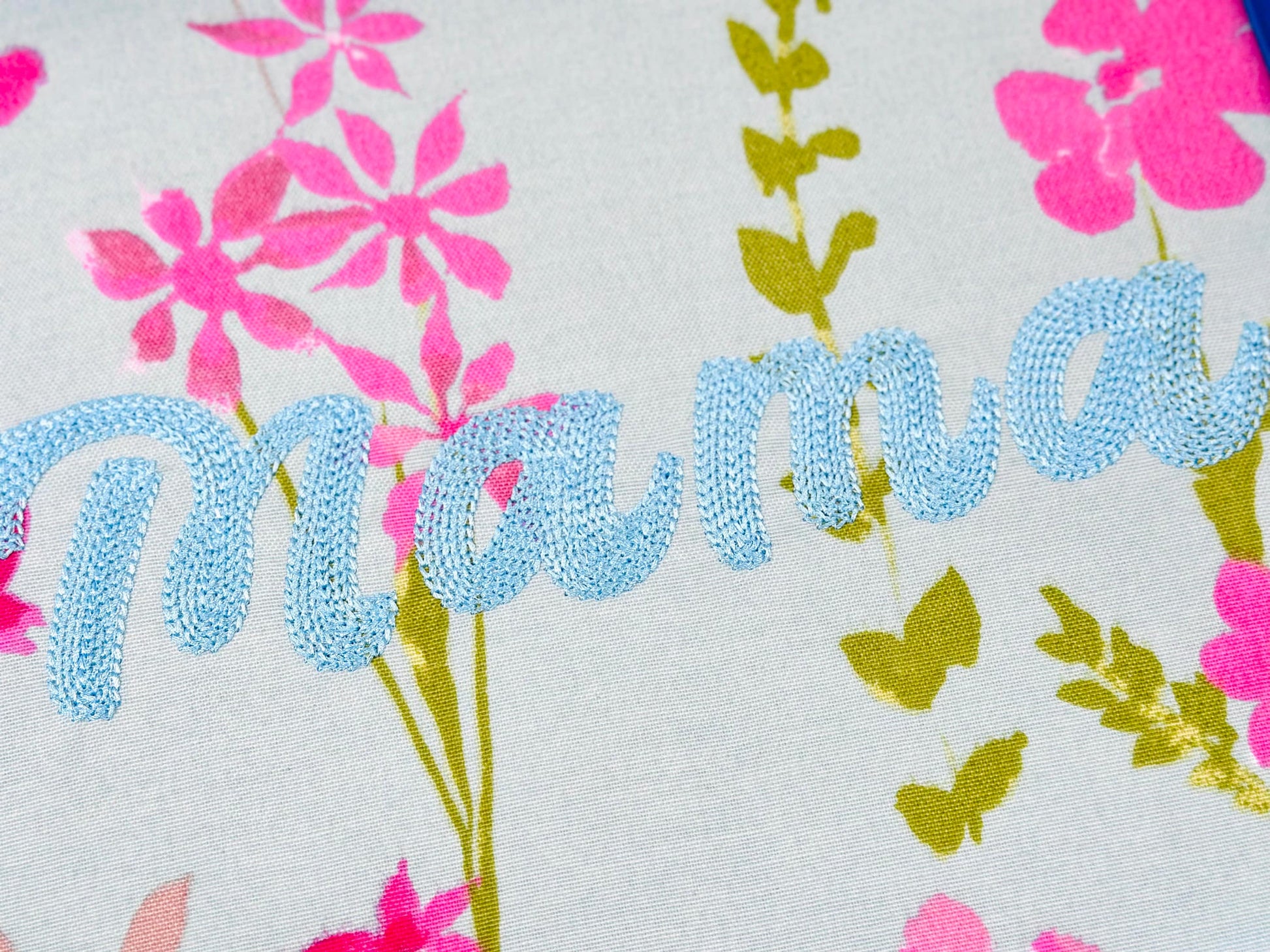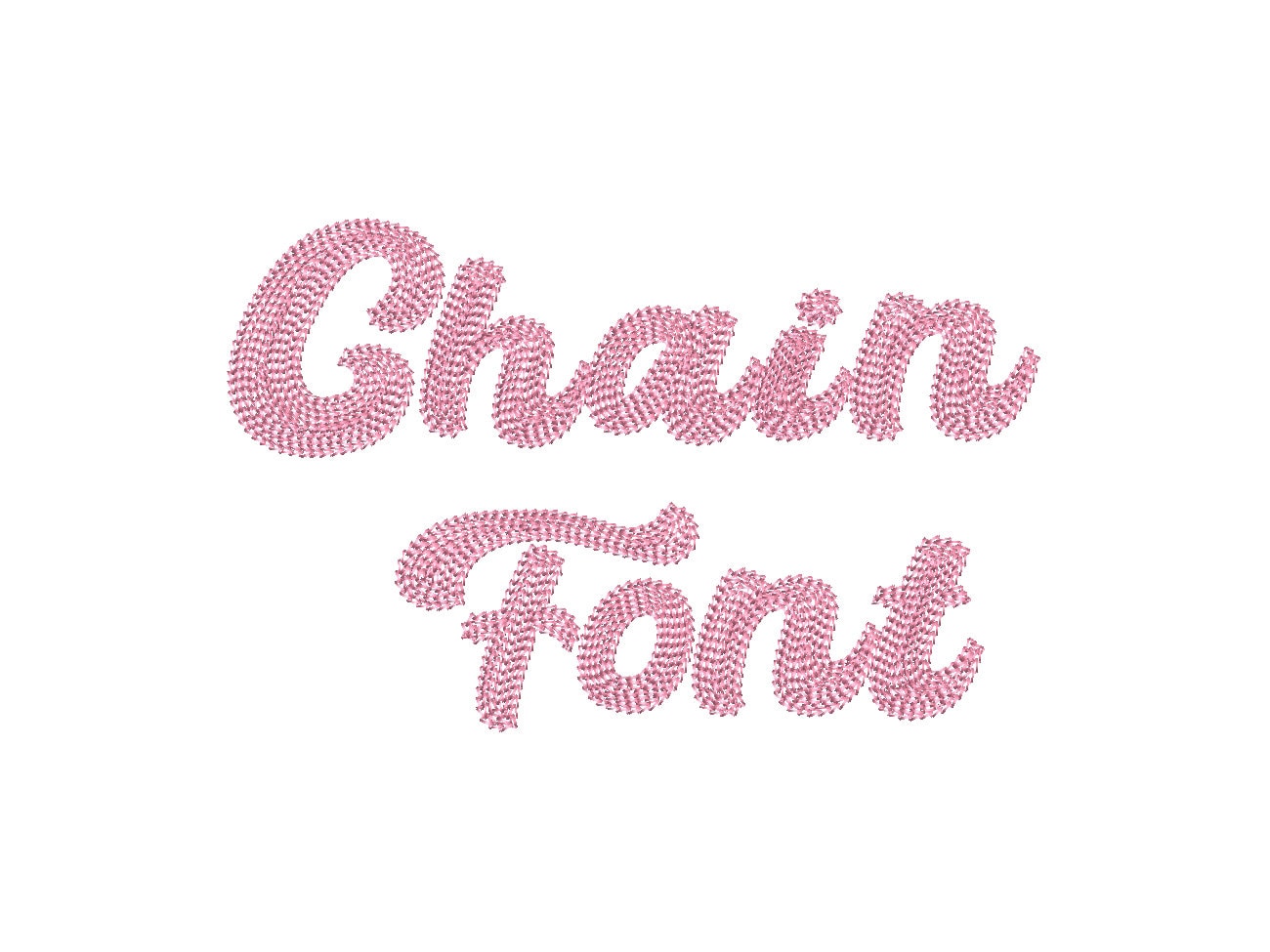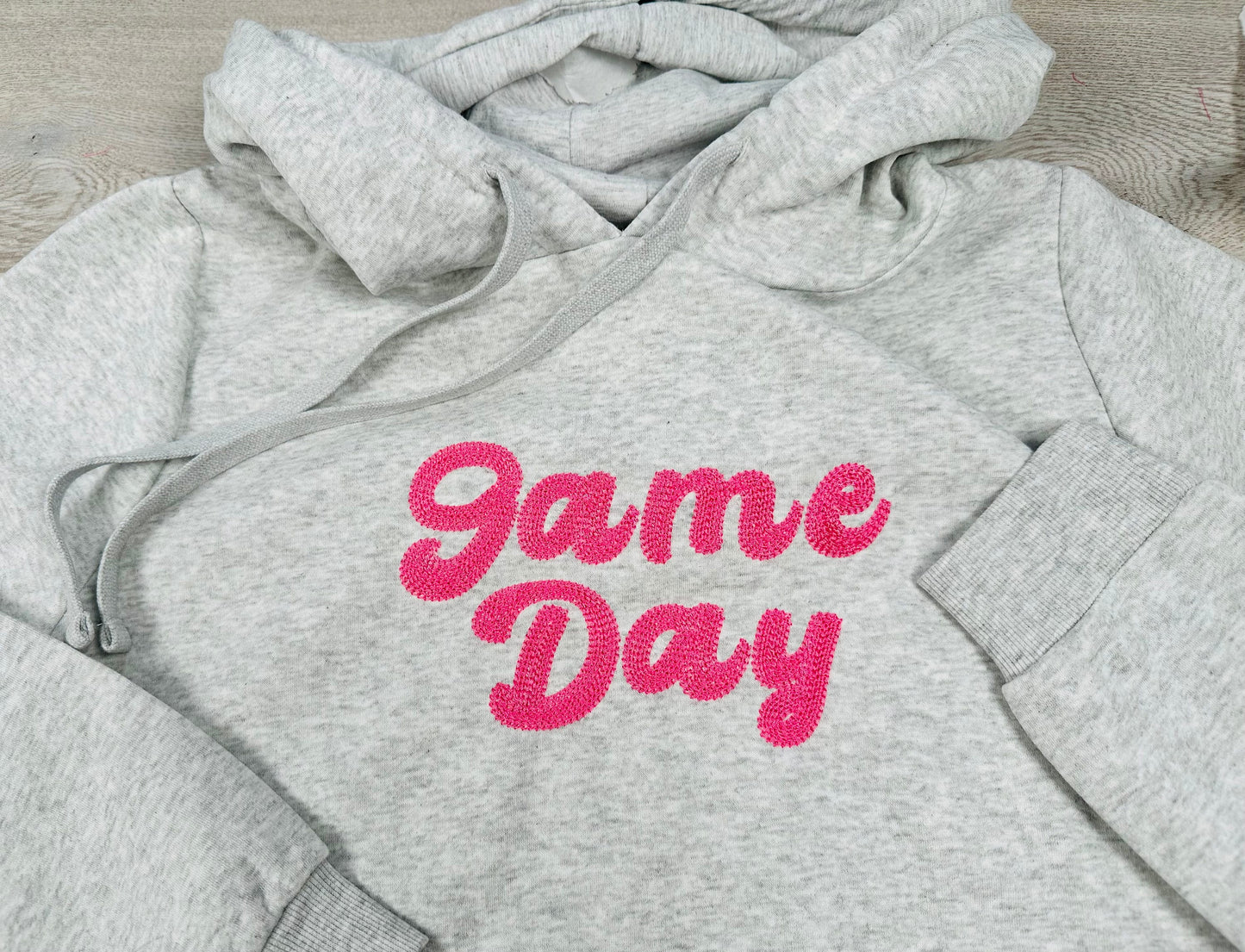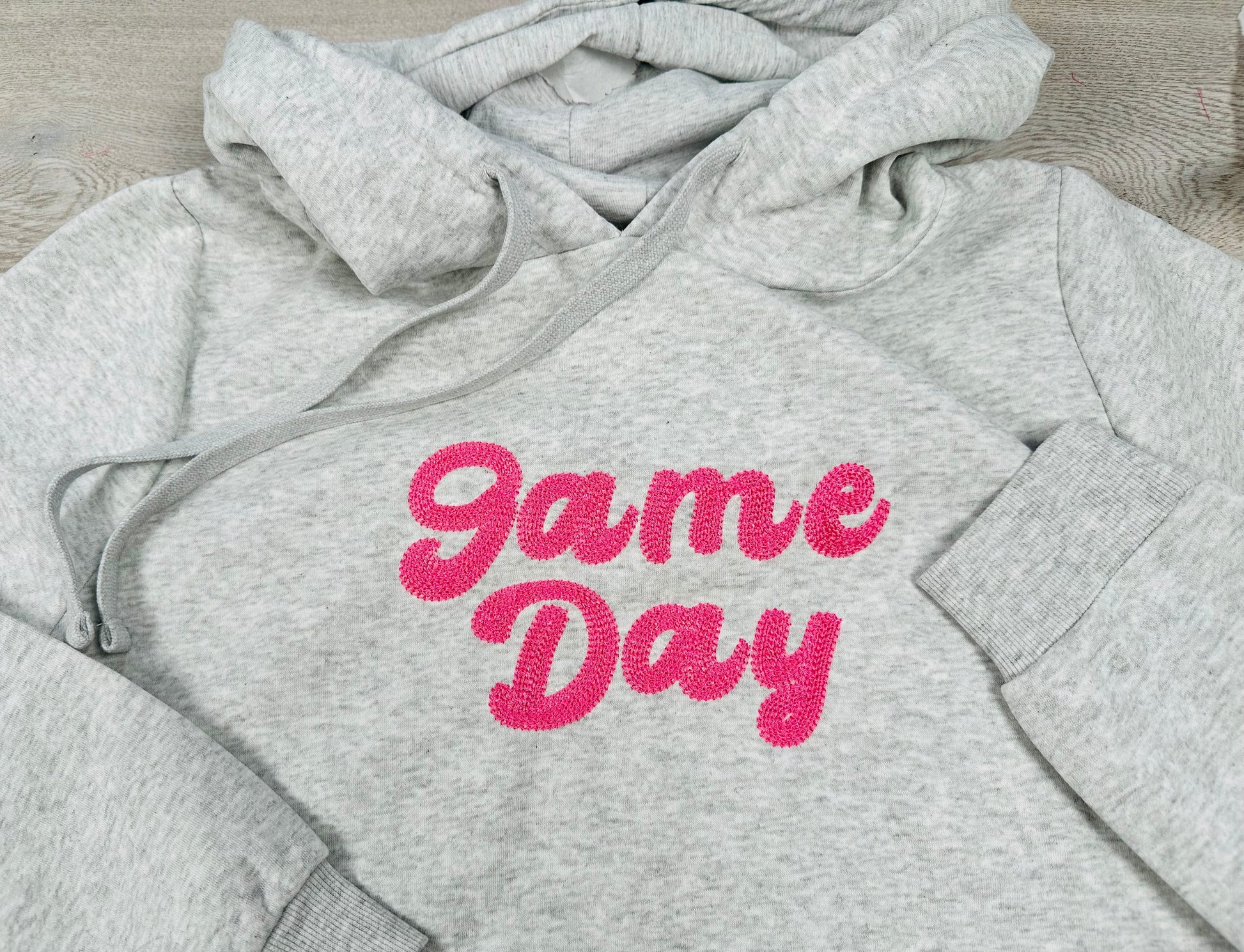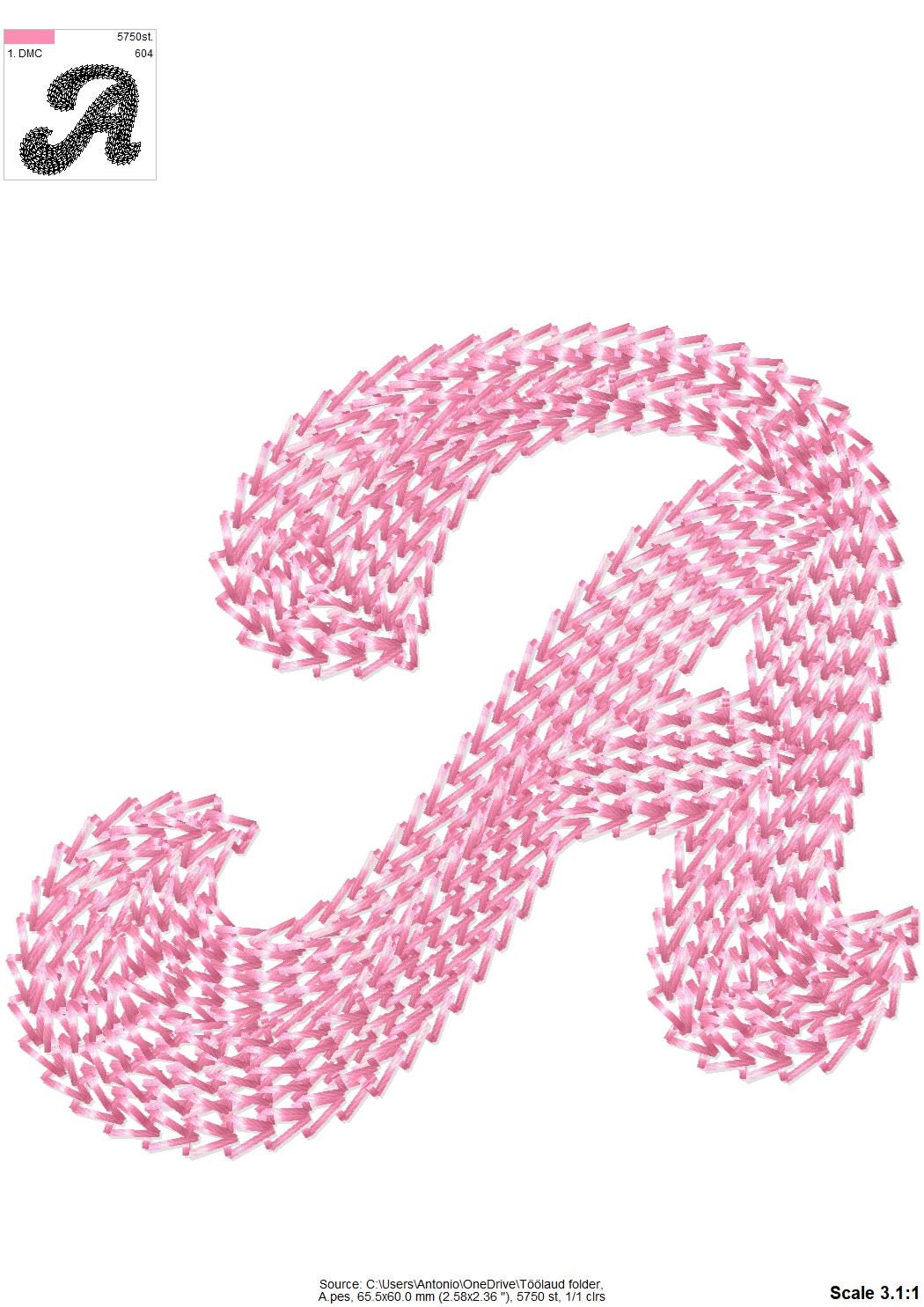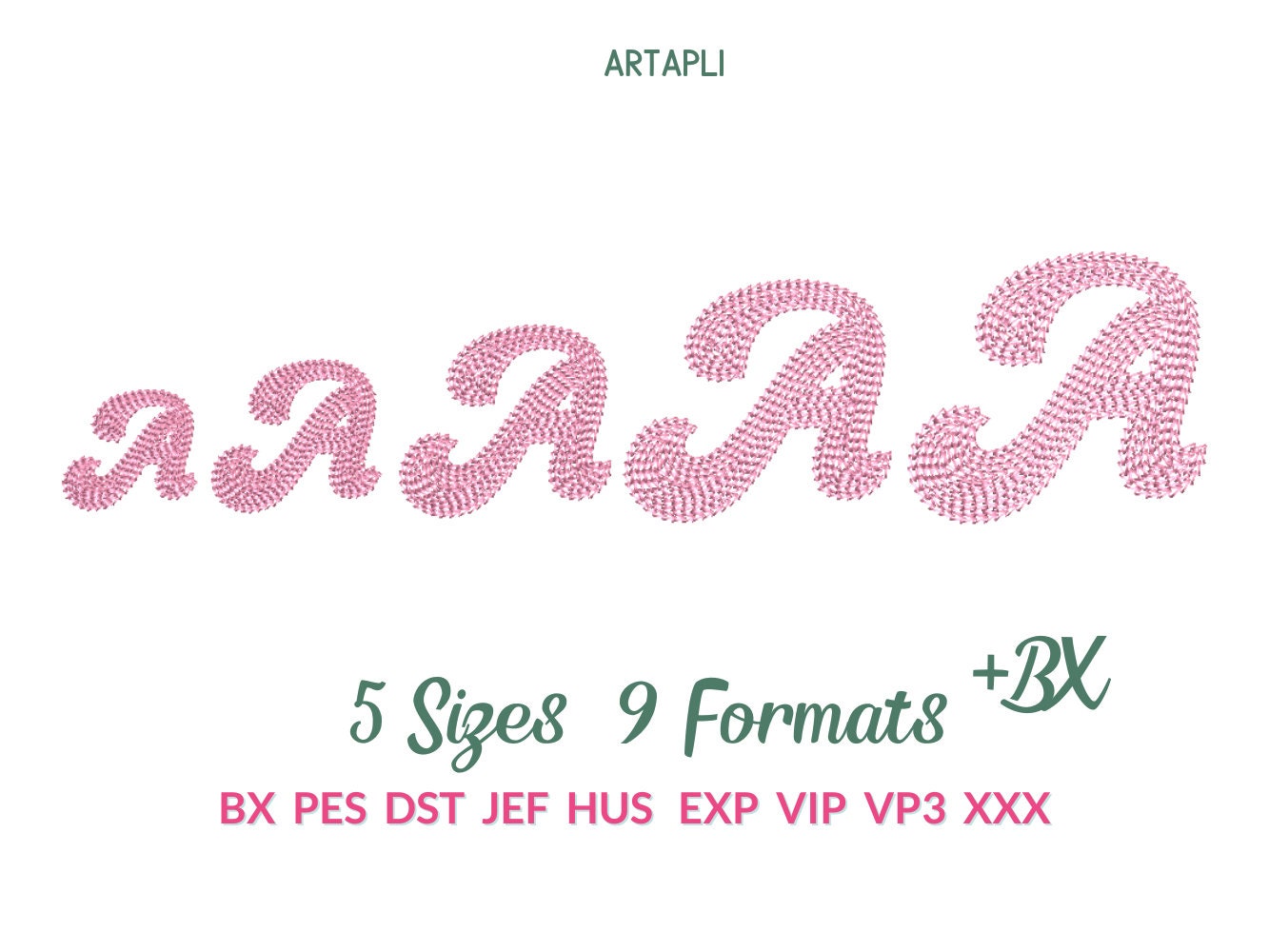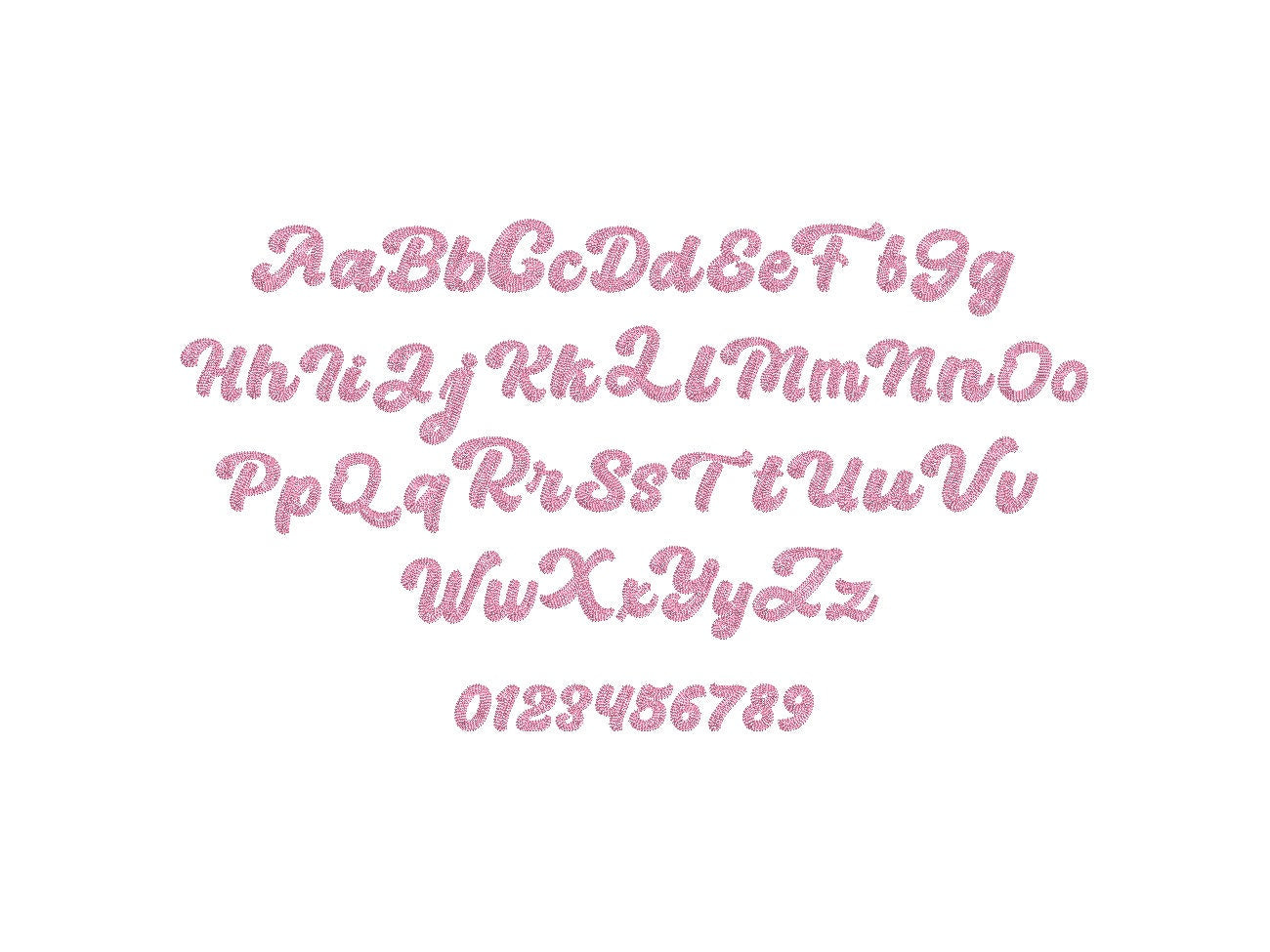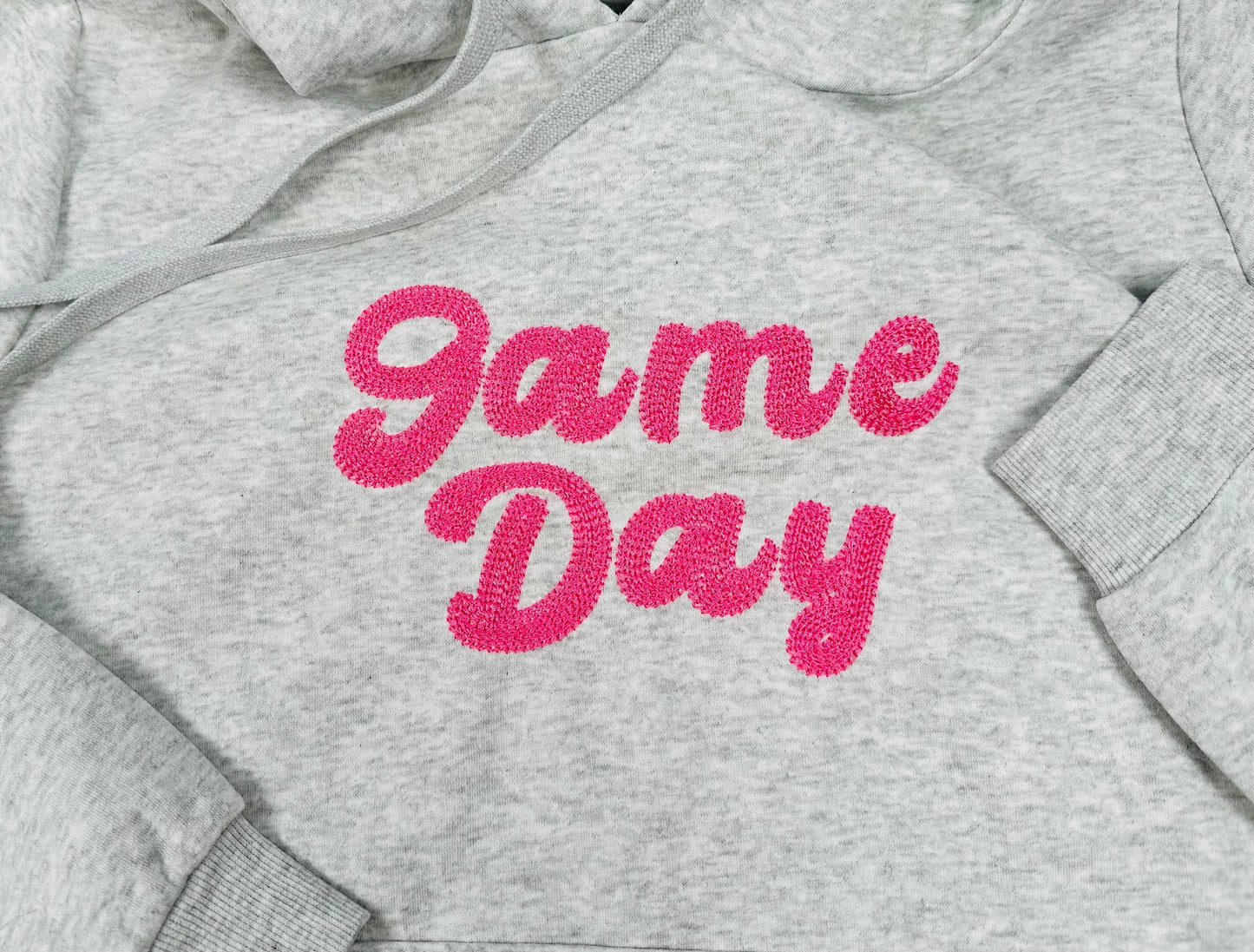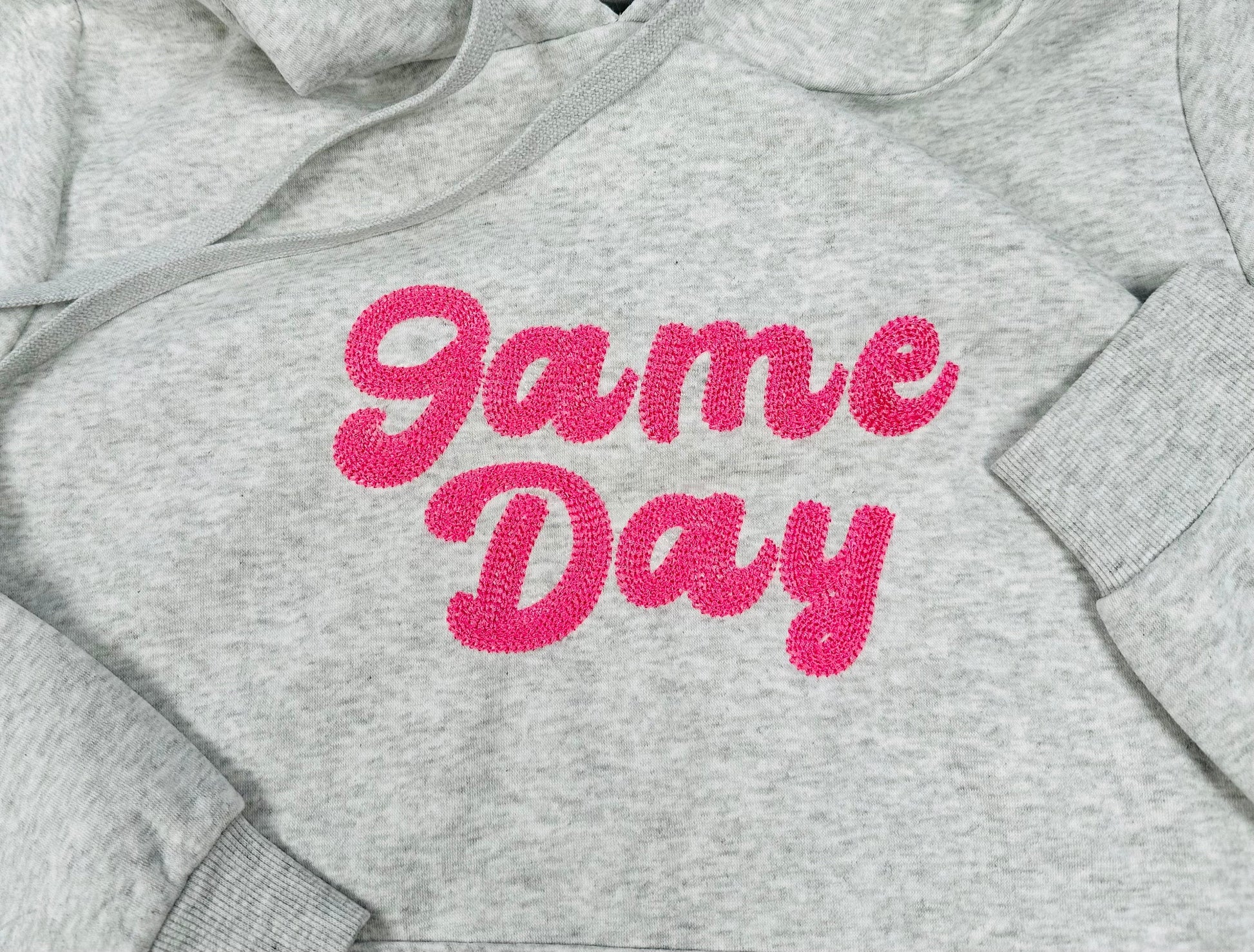
Or click to open the linkA cursive chain font with a textured, hand-stitched look. Lovely for names, monograms, sayings and baby gifts.
Uppercase and lowercase letters, numbers 0 to 9 and an ampersand, in five sizes: 1.5, 1.9, 2.3, 3 and 3.3 inches. Each letter is filled with chain stitch for a handmade texture.